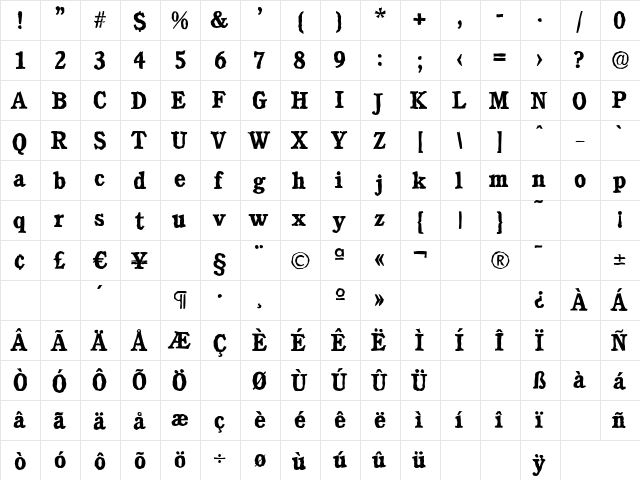
CalgaryAntique Bold
Design Context for CalgaryAntique Typeface
CalgaryAntique wears its vintage influences proudly, with letterforms that recall mid-century signage, classic packaging, and nostalgia-driven design. The heavy weight commands attention and anchors typographic hierarchies.
Font Pairing: Combine CalgaryAntique with a simple slab or neutral sans — period-accurate companions reinforce the vintage feel without competing for attention.
Pro Tip: Lean into CalgaryAntique's period character by pairing it with aged paper textures, muted colour palettes, and vintage illustration styles.